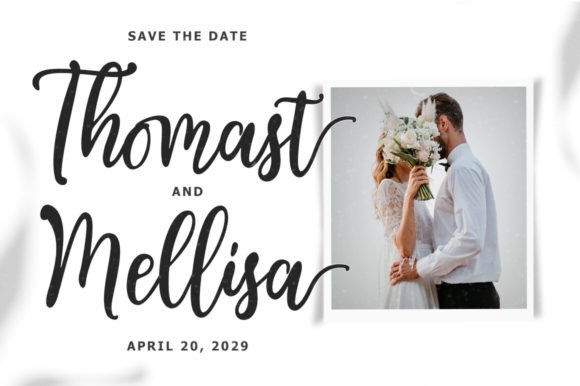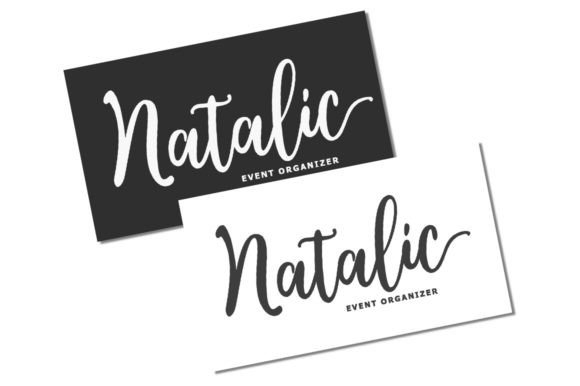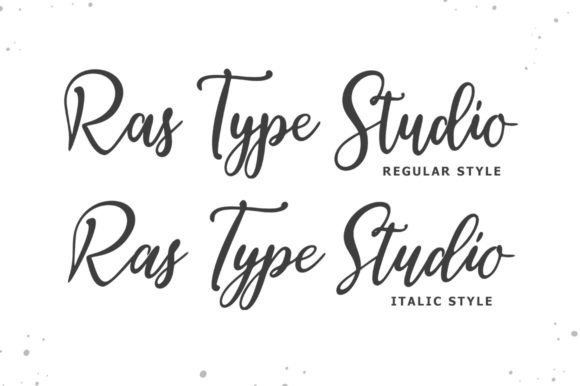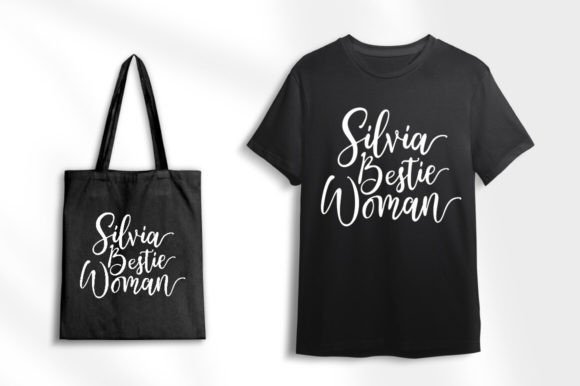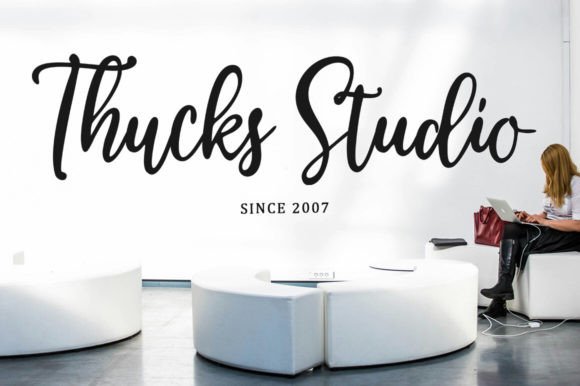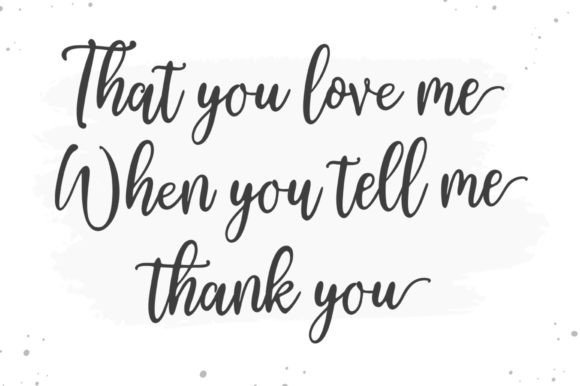
Bishail Font: Elevate Your Designs with Elegance and Modernity
In the world of typography, fonts play a crucial role in conveying the tone and aesthetic of a design. For designers and crafters seeking a beautiful and modern font, Bishail Script stands out as an exceptional choice. This stunning font is perfect for a variety of design projects, including wedding invitations, thank you cards, Mother’s Day cards, quotes, greeting cards, logos, business cards, and more.
The Beauty of Bishail Script
Bishail Script is a beautiful and modern font that boasts an elegant and sophisticated style. Its unique lettering and flowing curves make it an ideal choice for designs that require a touch of luxury and refinement. Whether you’re creating a wedding invitation or a business card, Bishail Script is sure to impress with its clean and contemporary look.
One of the standout features of Bishail Font is its versatility. It can be used for a wide range of design projects, from personal to commercial. Here are some ideas to get you started:
- Mother’s Day cards and gifts
- Quotes and social media graphics
- Greeting cards for any occasion
Why Choose Bishail Font?
So, why should you choose Bishail Font for your design projects? Here are just a few reasons:
- Unique and modern design: Bishail Script boasts a fresh and contemporary look that’s sure to stand out.
- Versatility: This font can be used for a wide range of design projects, from personal to commercial.
- Elegance and sophistication: Bishail Script adds a touch of luxury and refinement to any design.
Tips for Using Bishail Font
To get the most out of Bishail Font, here are a few tips:
- Experiment with different sizes and colors: Bishail Script looks great in a variety of sizes and colors.
- Pair with complementary fonts: Try pairing Bishail Script with other fonts to create a unique and visually appealing design.
Bishail Font is a beautiful and modern font that’s perfect for designers and crafters seeking to elevate their designs. With its elegant and sophisticated style, versatility, and ease of use, Bishail Script is an exceptional choice for a wide range of design projects. Whether you’re creating wedding invitations, business cards, or social media graphics, Bishail Font is sure to impress.